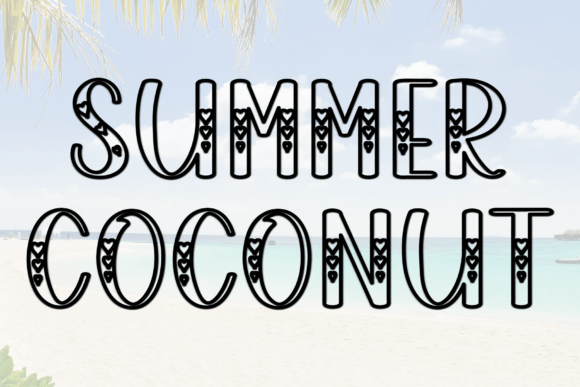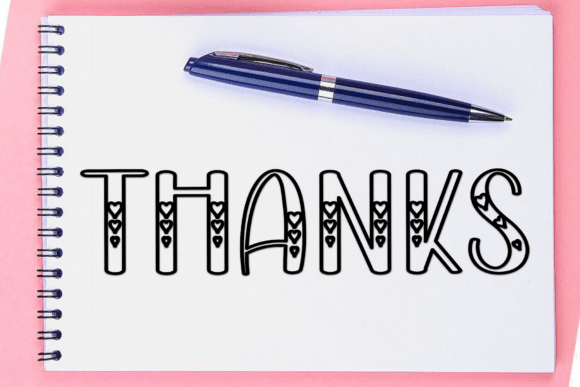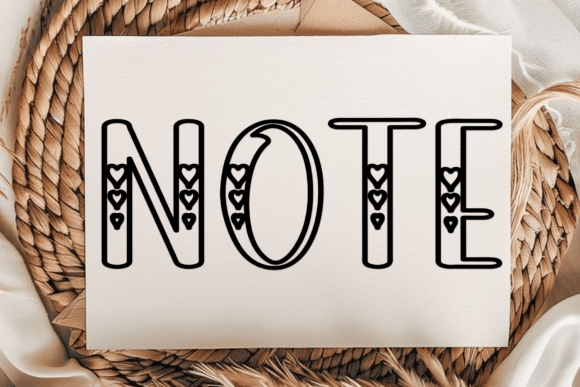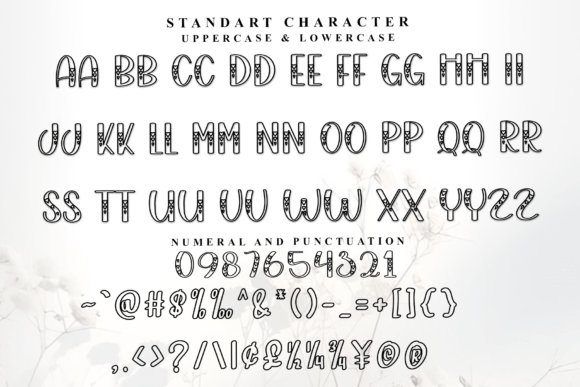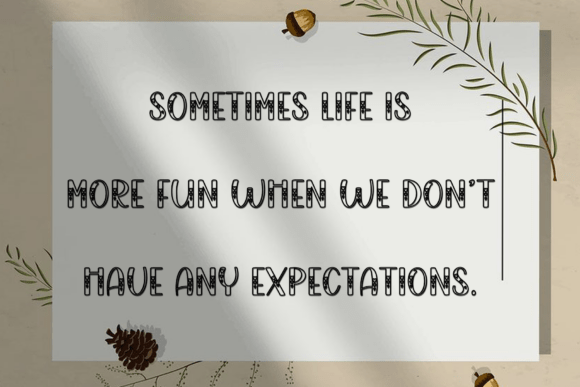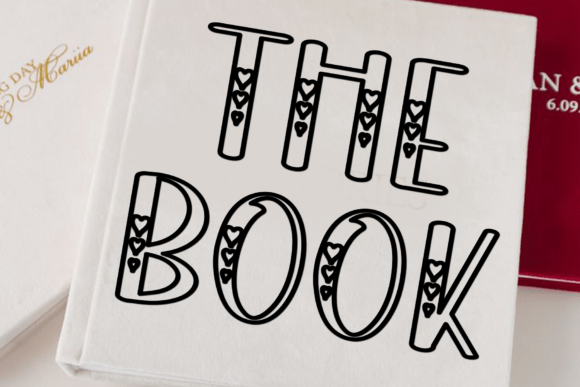
The Magic of Chubby Beloved Font: A Festive Favorite for Designers and Crafters
Ah, the holiday season is upon us, and you know what that means – a flurry of design projects that require a touch of festive magic! I still remember the year I was tasked with creating a Christmas card for a client’s family reunion. I spent hours scouring font libraries, searching for the perfect typeface to capture the warmth and cheer of the season. That’s when I stumbled upon Chubby Beloved Font, and it instantly became my go-to for holiday designs.
A Personal Review: What I Love About Chubby Beloved Font
So, what makes Chubby Beloved Font so special? Here are a few things that I absolutely adore:
- ✨ Festive and merry vibe: This font embodies the spirit of the holiday season, with its decorative elements and whimsical flair.
- 🎉 Perfect for holiday projects: From greeting cards to gift tags, this font is ideal for adding a touch of enchantment to your designs.
While Chubby Beloved Font is a fantastic addition to any designer’s toolkit, there are a few minor quirks to be aware of:
- ⚠️ Limited use outside of holiday season: Let’s face it – this font is specifically designed for festive projects, so it might not be the best choice for other types of designs.
The Story Behind Chubby Beloved Font
While the true story behind Chubby Beloved Font remains a mystery, it’s easy to imagine that it was created by a designer who loves the holiday season as much as we do. Perhaps they were inspired by vintage holiday cards, festive decorations, or the magic of snowfall. Whatever the inspiration, Chubby Beloved Font is sure to bring a touch of enchantment to your designs.
| Q: What is Chubby Beloved Font? | A: Chubby Beloved Font is a festive and merry typeface designed specifically for holiday projects. |